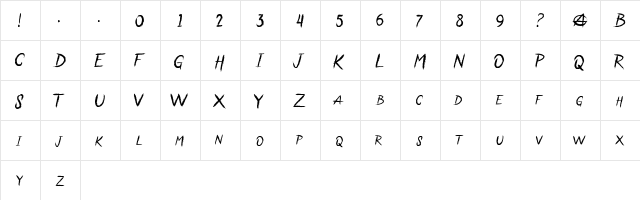
Anarchaos Regular Font Preview
Anarchaos Regular
Anarchaos Regular Font Details
| Foundry | Krisna Teja |
Design Context for Anarchaos Typeface
Anarchaos is a composed and adaptable typeface that performs quietly and consistently across a wide range of design contexts.
Pro Tip: Use Anarchaos in both headline and body roles to test its range before committing to a single application.